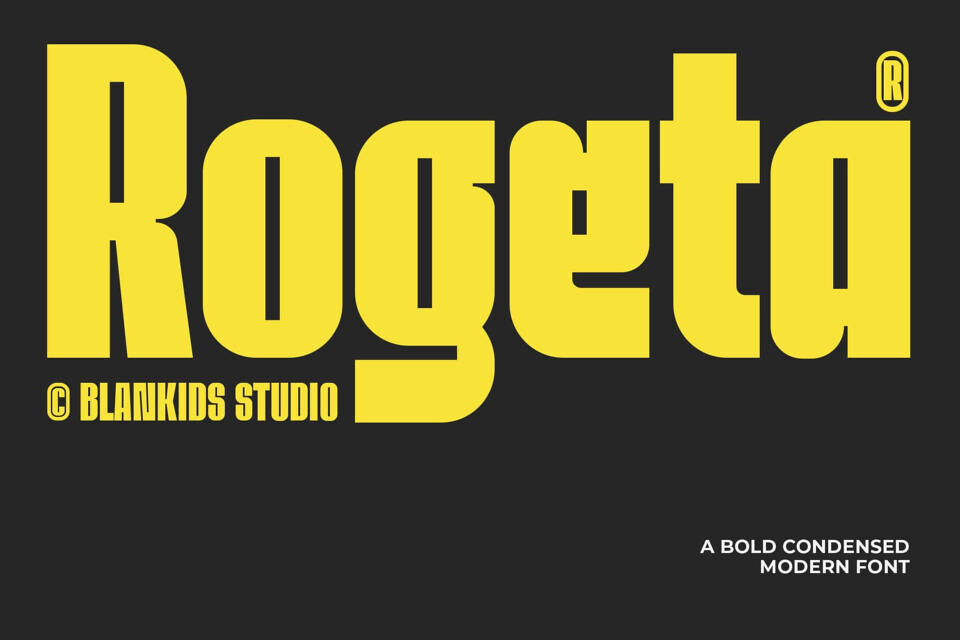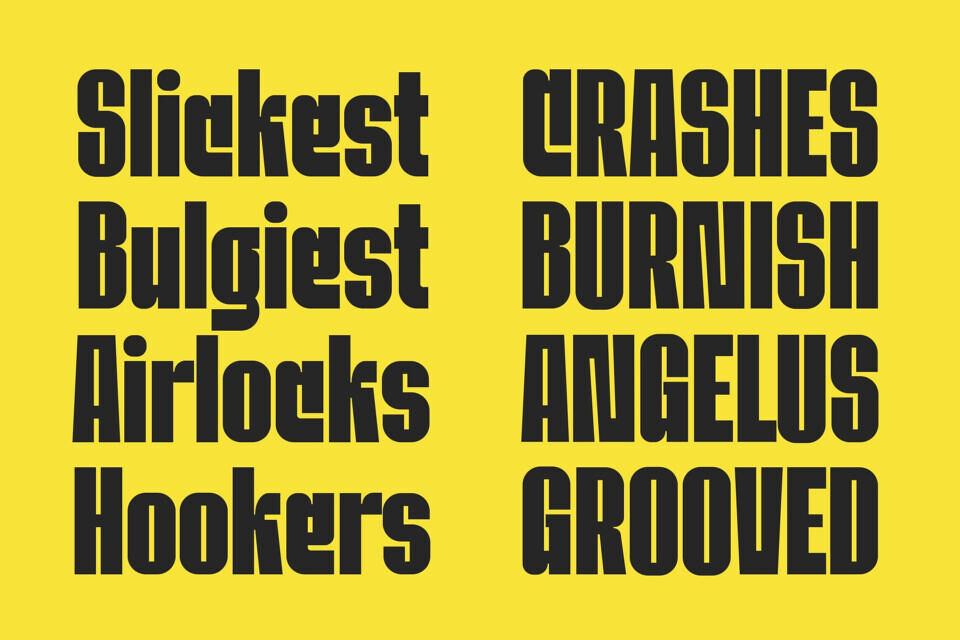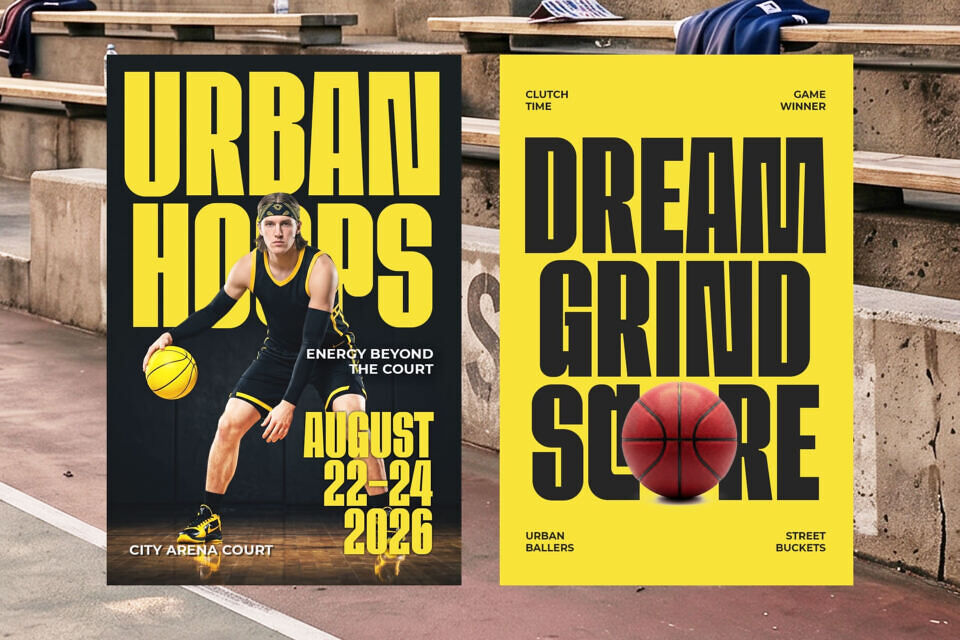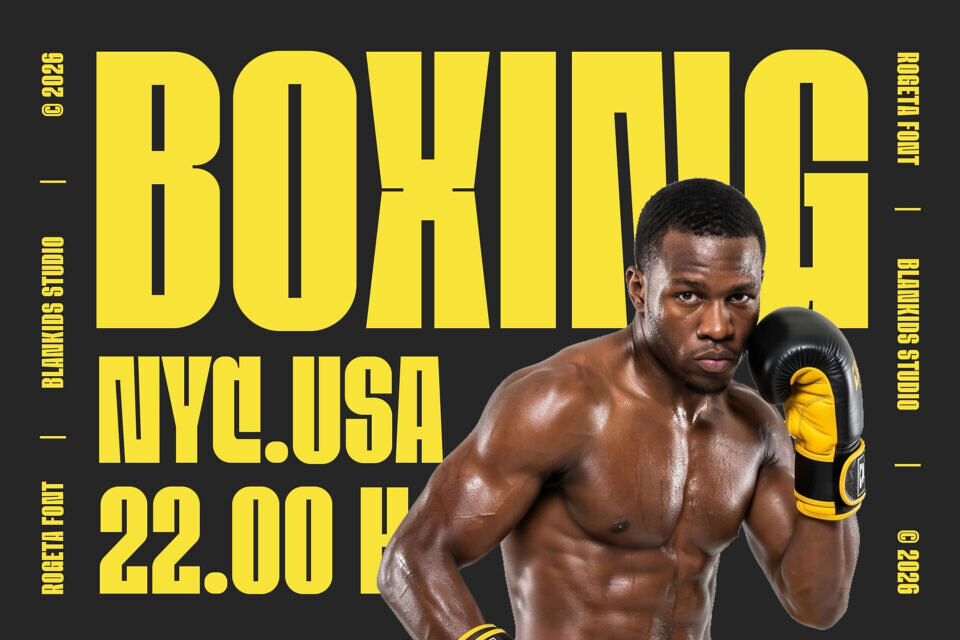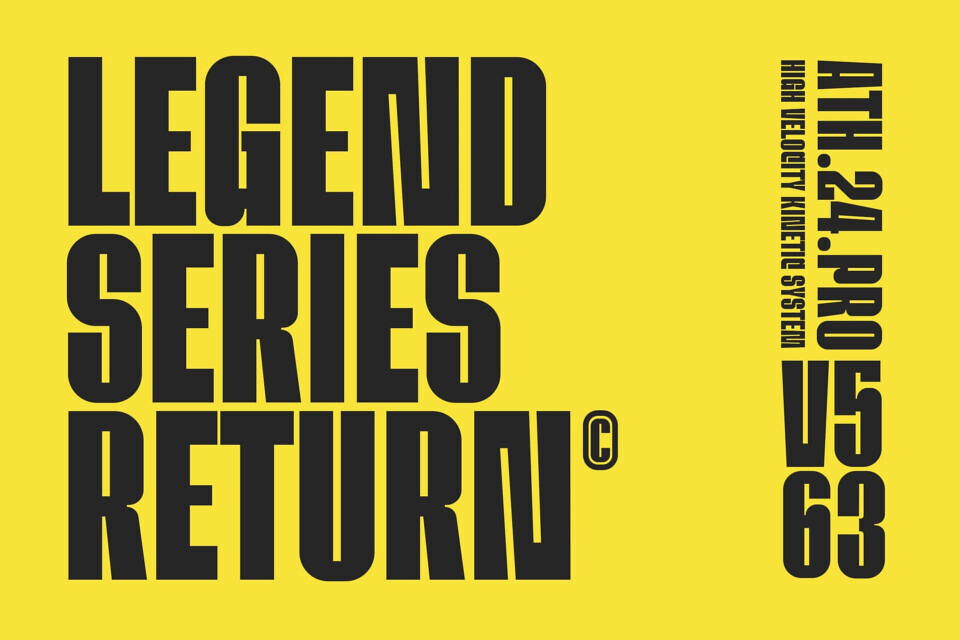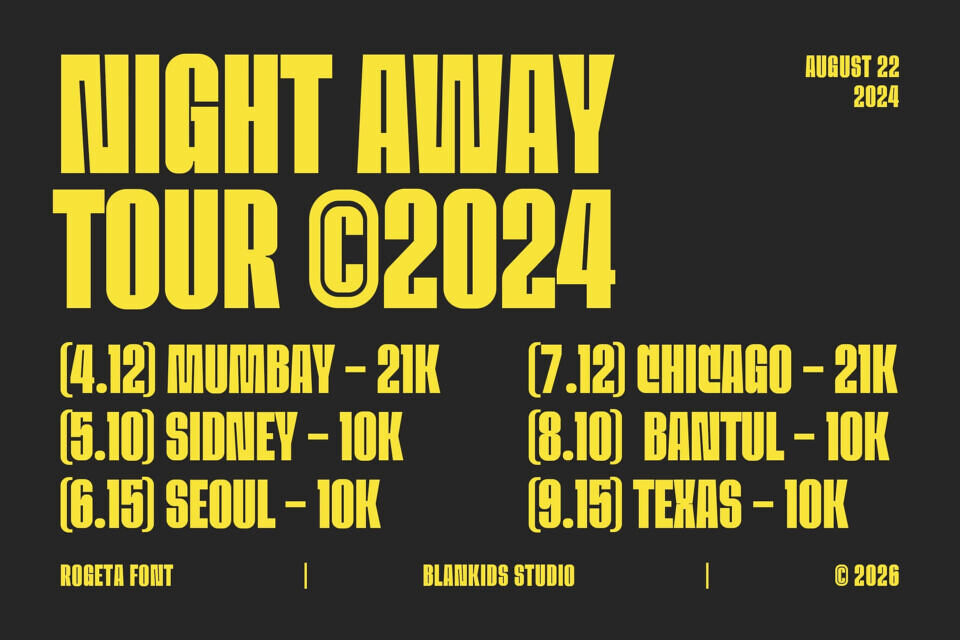
Rogeta Font
Rogeta is a bold condensed modern display font designed to make a strong visual impact. With its tall proportions, clean geometric shapes, and powerful character structure, Rogeta is perfect for projects that need attention-grabbing typography and a contemporary urban aesthetic.
Whether you’re creating posters, sports branding, event promotions, album covers, streetwear designs, packaging, social media graphics, or bold headlines, Rogeta delivers a confident and distinctive presence. Its condensed form allows you to fit more content into tight spaces while maintaining excellent readability and visual strength.
Designed by: Blankids Studio